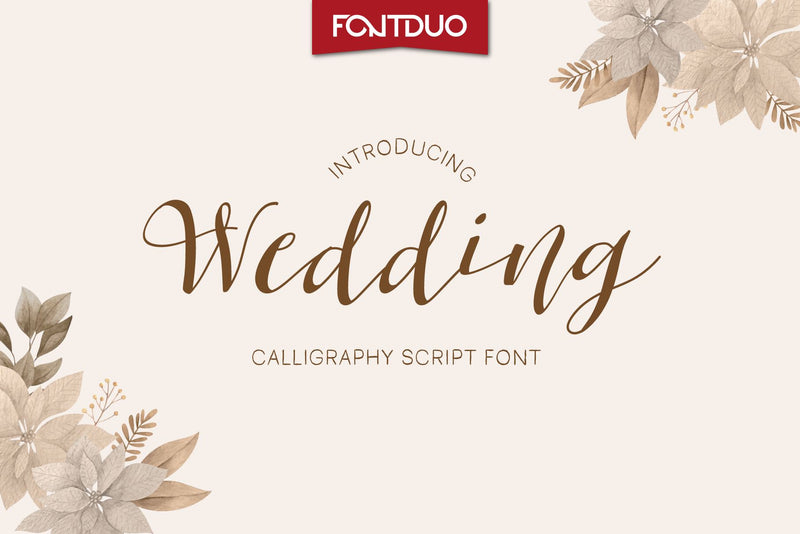
Wedding Script Font
Wedding Script is a sweet and curly handwritten script font that was carefully crafted to enhance a variety of projects. This font can be used to write titles, invitations, letters, and many other types of products.